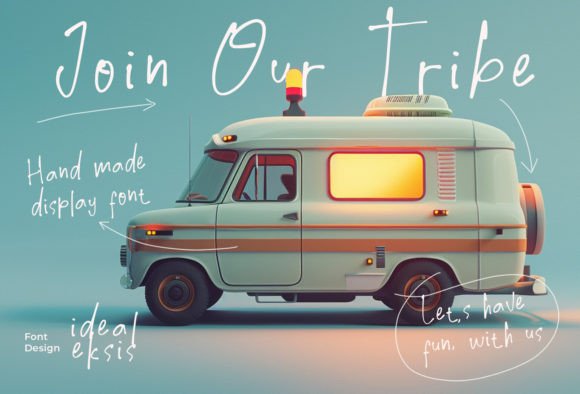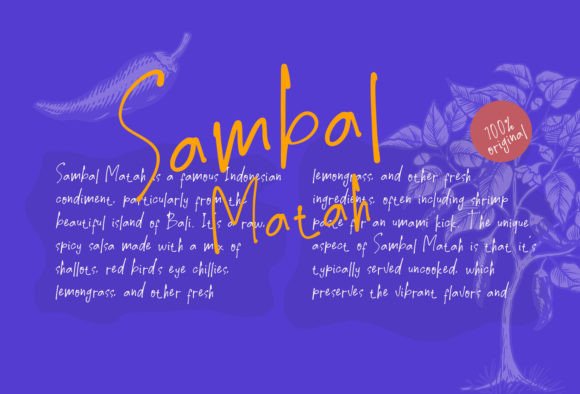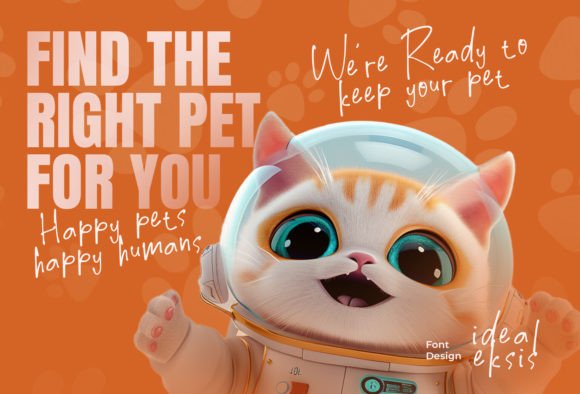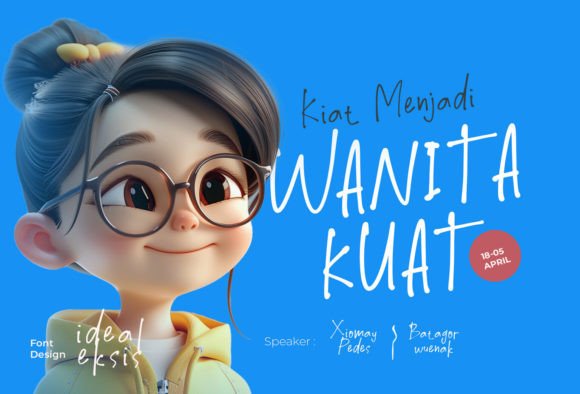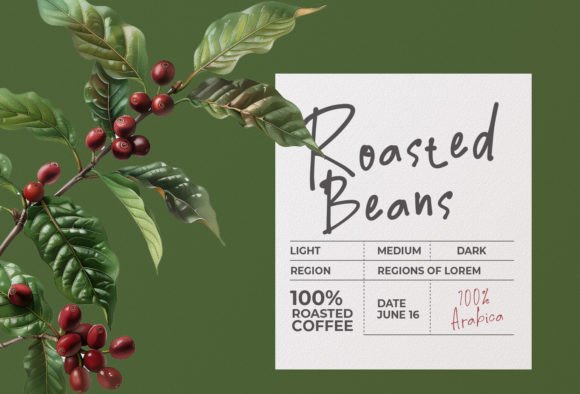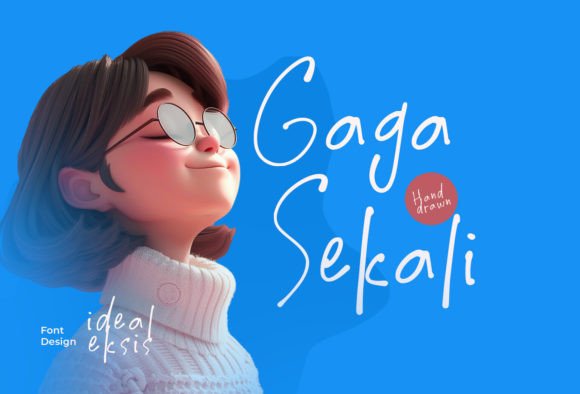
Introducing Gaga Sekali Font: The Ultimate Blend of Whimsy and Elegance
In the world of design, typography plays a crucial role in conveying the message and aesthetic of a project. With the vast array of fonts available, it can be challenging to find the perfect one that captures the essence of your creative vision. However, if you’re looking for a font that combines whimsy and elegance, look no further than the Gaga Sekali font. This bespoke, hand-drawn typeface is designed to transform your designs with its unique charm and fresh touch of cool.
The Story Behind Gaga Sekali Font
The Gaga Sekali font is the brainchild of talented designers who sought to create a distinctive typeface that would effortlessly amplify any visual aesthetic. With a keen eye for detail and a deep understanding of the importance of typography, they crafted a font that seamlessly melds playful creativity and authenticity. The result is a font that is both enchanting and elegant, perfect for designers and crafters looking to add a touch of magic to their projects.
Key Features of Gaga Sekali Font
So, what makes the Gaga Sekali font so special? Here are some of its key features:
- Hand-drawn characters: Each character in the Gaga Sekali font is carefully hand-drawn, giving the font a unique and personal touch.
- Whimsical and elegant: The font combines whimsy and elegance, making it perfect for a wide range of design projects, from children’s books to luxury branding.
- Distinctive style: The Gaga Sekali font has a distinctive style that sets it apart from other fonts. Its bespoke characters are designed to add a touch of charm and personality to any design.
- Playful creativity: The font is designed to inspire playful creativity, making it perfect for designers and crafters who want to add a fresh touch to their projects.
How to Use Gaga Sekali Font in Your Designs
The Gaga Sekali font is incredibly versatile and can be used in a wide range of design projects, including:
- Branding and logos: The font’s unique style makes it perfect for creating distinctive logos and branding materials.
- Digital and print media: The Gaga Sekali font can be used in digital and print media, including social media graphics, posters, and flyers.
- Web design: The font’s clean and elegant lines make it perfect for web design, adding a touch of sophistication to any website.
- Crafting and DIY projects: The Gaga Sekali font is also perfect for crafters and DIY enthusiasts who want to add a personal touch to their projects.
Tips for Getting the Most Out of Gaga Sekali Font
To get the most out of the Gaga Sekali font, here are some tips:
- Experiment with different sizes and colors: The font’s versatility means it can be used in a range of sizes and colors. Experiment to find the perfect combination for your design.
- Pair with other fonts: The Gaga Sekali font can be paired with other fonts to create a unique and visually appealing design.
- Use it sparingly: While the font is beautiful, it’s best to use it sparingly to avoid overwhelming the design.
In conclusion, the Gaga Sekali font is a game-changer for designers and crafters looking to add a touch of whimsy and elegance to their projects. With its bespoke hand-drawn characters, distinctive style, and playful creativity, this font is sure to transform your designs and take them to the next level. So why not give it a try and see the magic for yourself?
Enrich your design experience with the Gaga Sekali font and discover a world of creative possibilities. Whether you’re a seasoned designer or a crafty DIY enthusiast, this font is sure to inspire and delight.